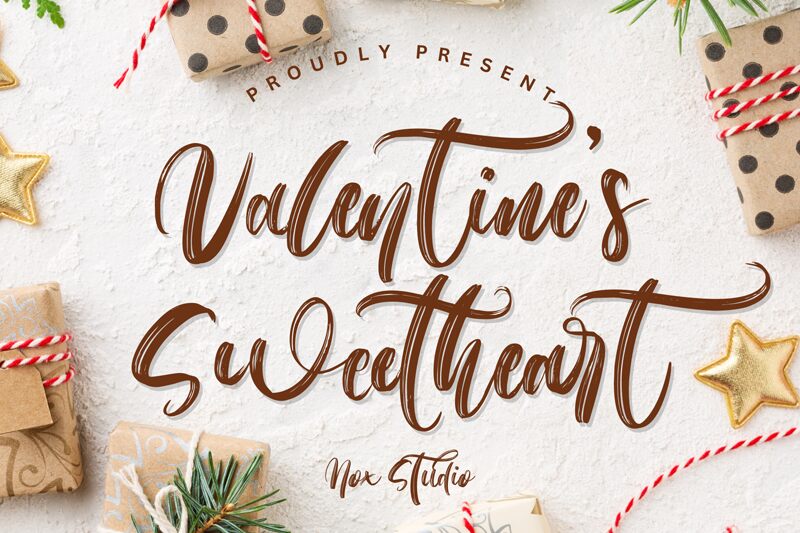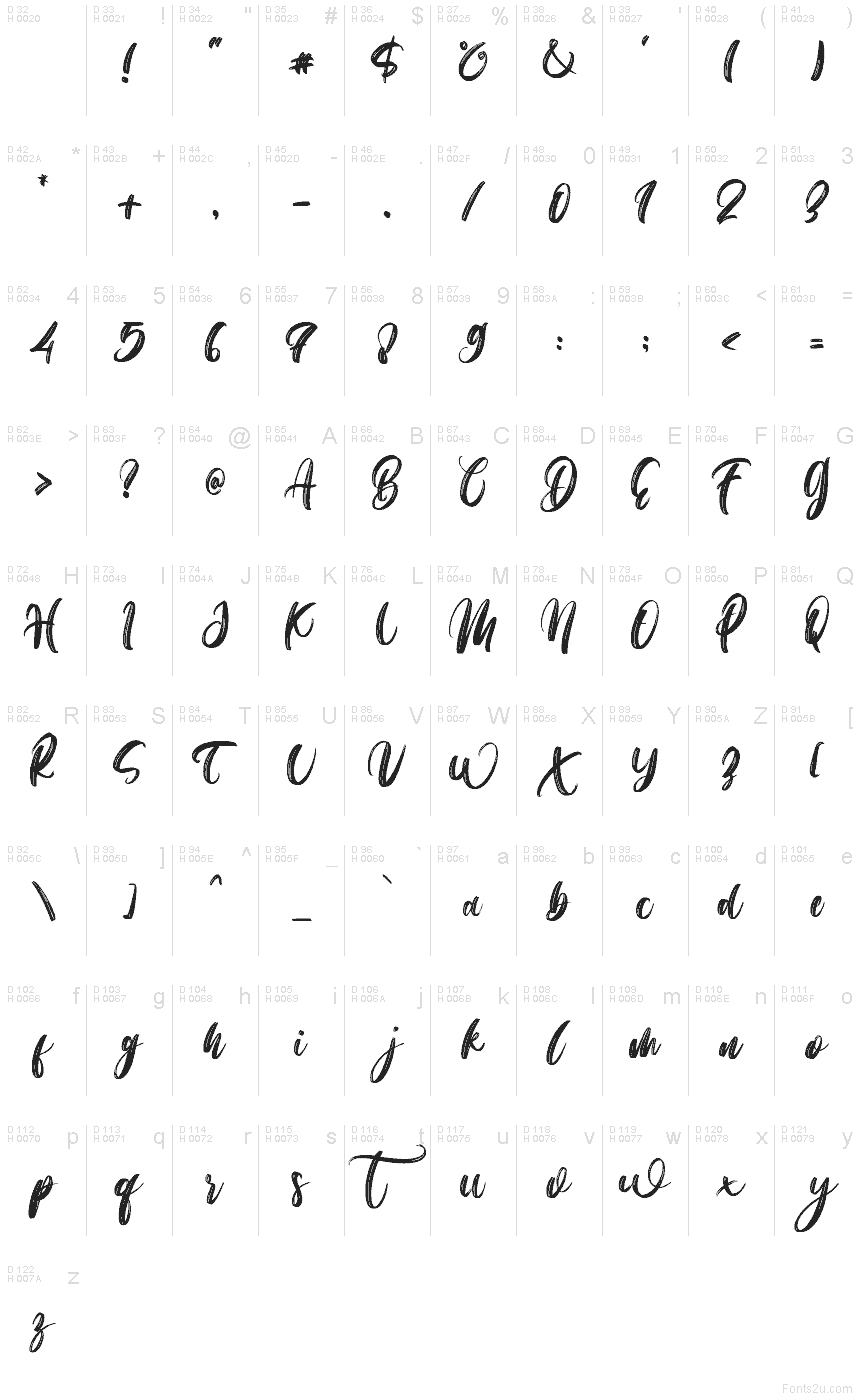
Valentine's Sweetheart
Valentine's Sweetheart font by Sarif Letter is a free brush script font with a swooping, hand-painted charm. Each stroke feels like it was written with an inky calligraphy brush—softly textured, slightly irregular, and full of motion—so your words look personal instead of printed. The long, curling tails and playful rhythm give it a romantic, storybook mood that instantly suggests love notes, keepsakes, and special moments.
Using Valentine’s Sweetheart font is a natural fit for wedding invitations, save-the-date cards, Valentine’s Day promos, romantic quote posters, boutique logos, and packaging for sweets or cosmetics. This free font shines when it’s given room to breathe in headlines or short phrases; pair it with a clean sans serif in smaller text to keep things readable while letting the brush lettering steal the show.